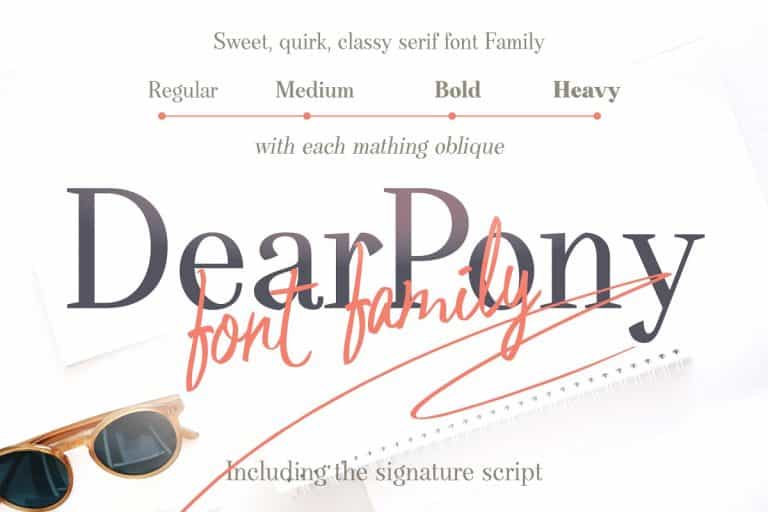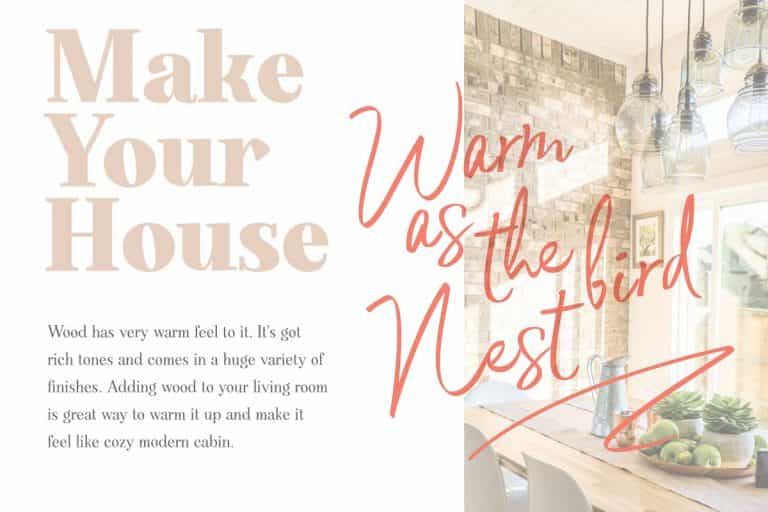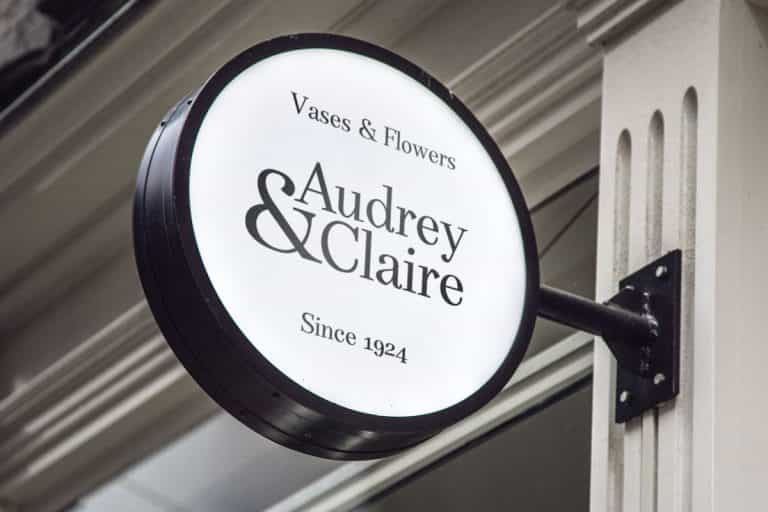
Meet the new DearPony Serif Script Font Duo. The font is a nice, warm, funny but still elegant serif and signature script duo. This nice combination provides a special and elegant look that is appropriate for many different creative projects. The serifs have 240 glyphs with eight weight; Regular, Medium, Bold and Oblique and every matching oblique. It is the language standard latin multilingual support.